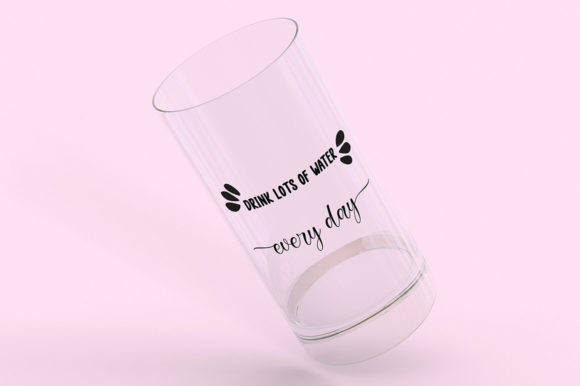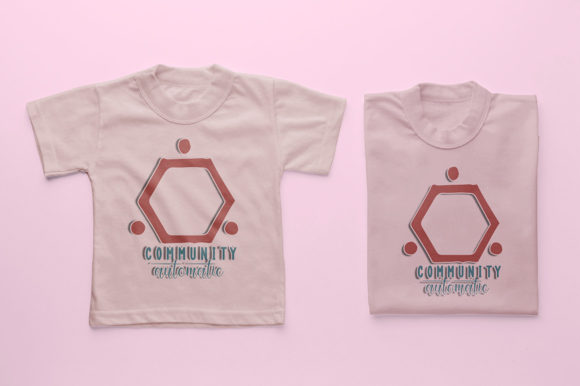
Radiant Radiantly Font
db-ku.com - Script & Handwritten -- Radiant Radiantly is a lovely duo font (script and sans serif), featuring versatile characters that seem to dance along the baseline. This font is PUA encoded which means you can access all of the amazing glyphs and ligatures with ease!